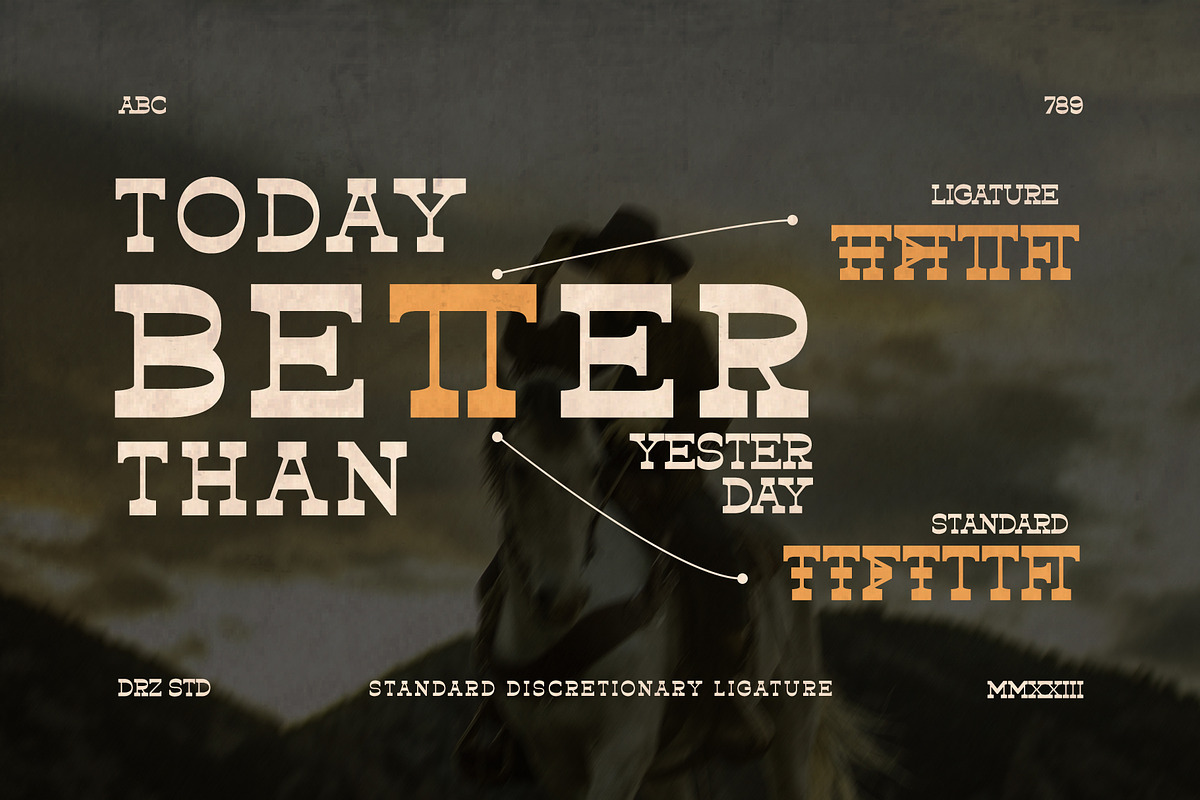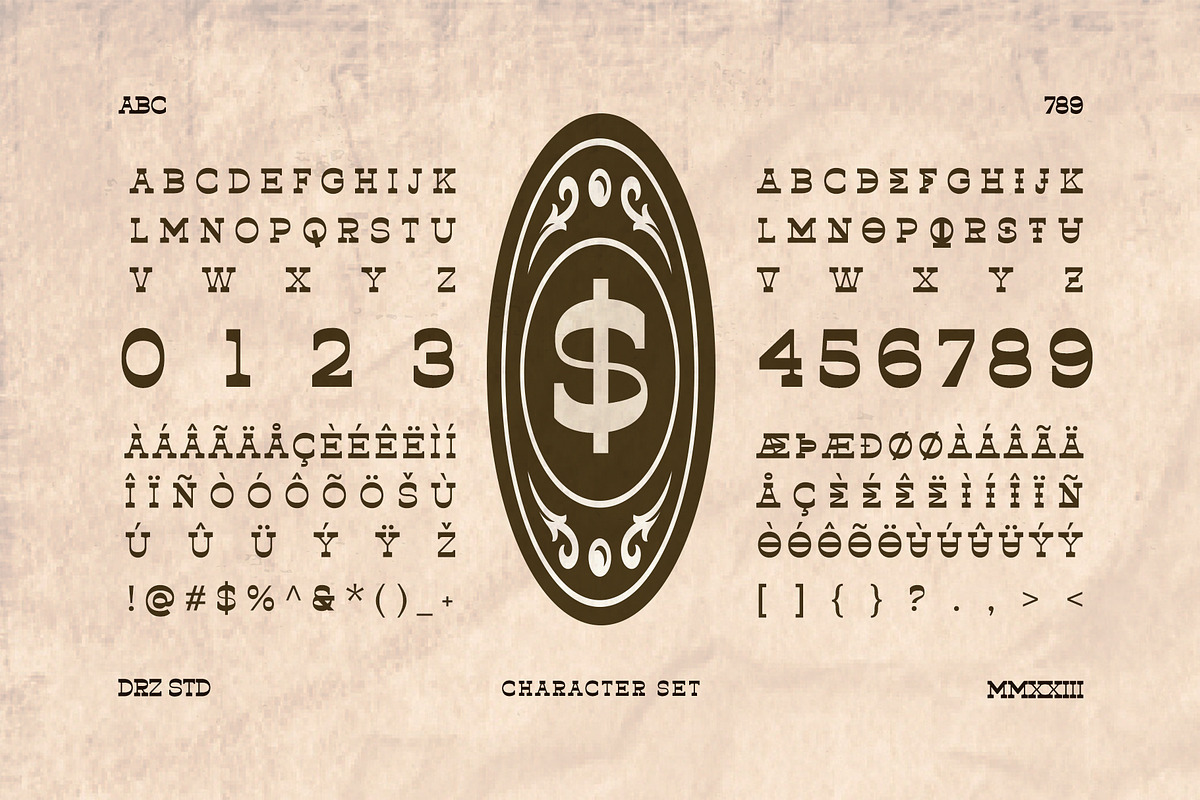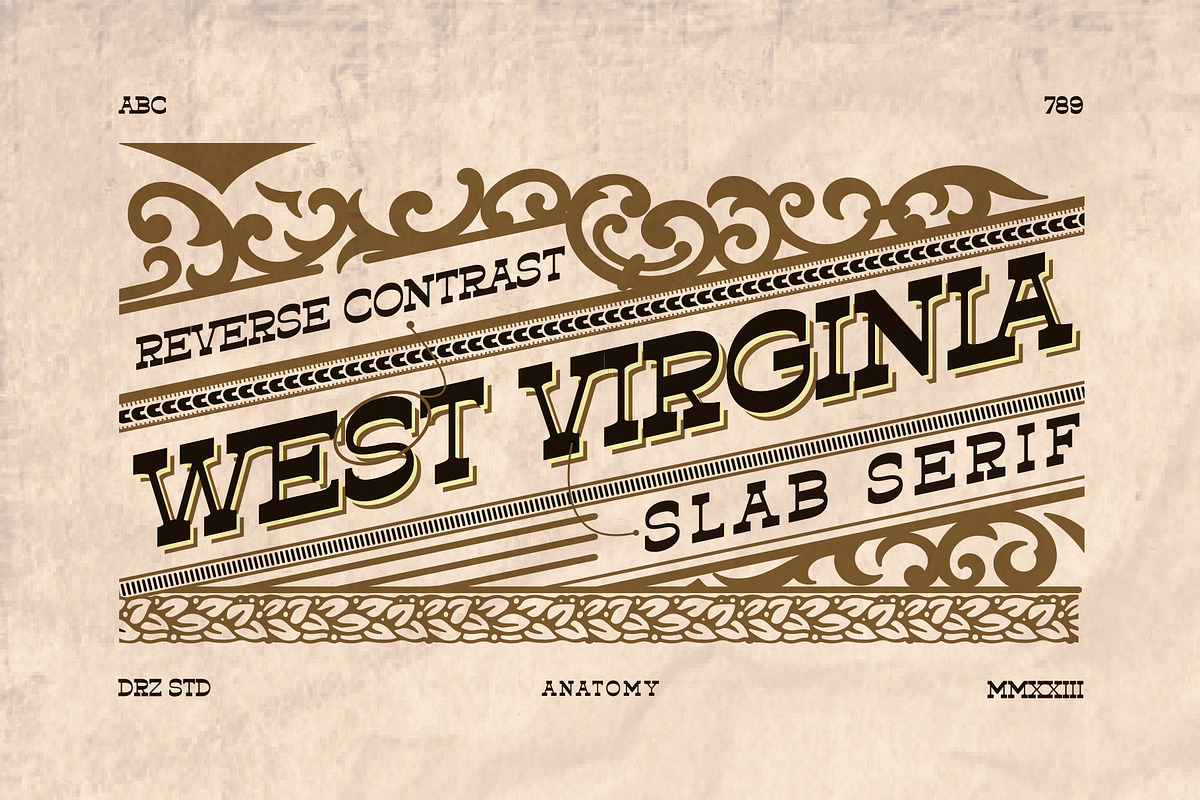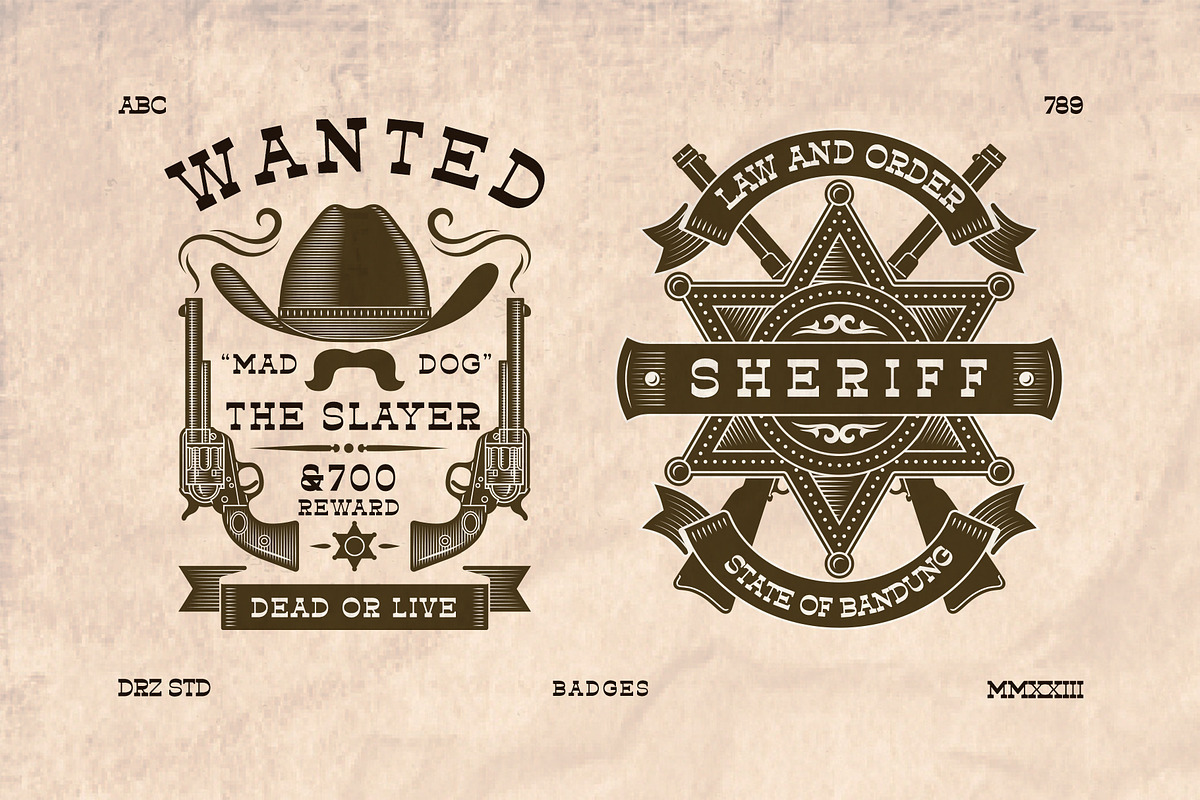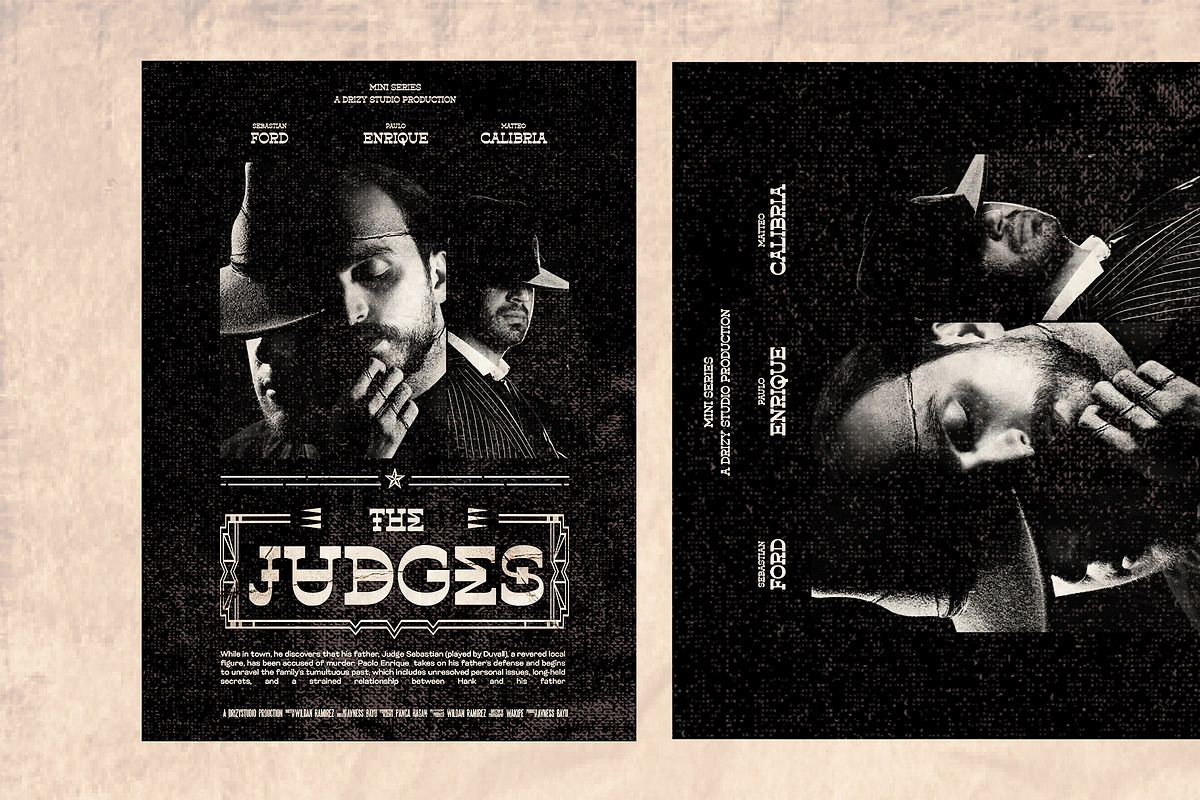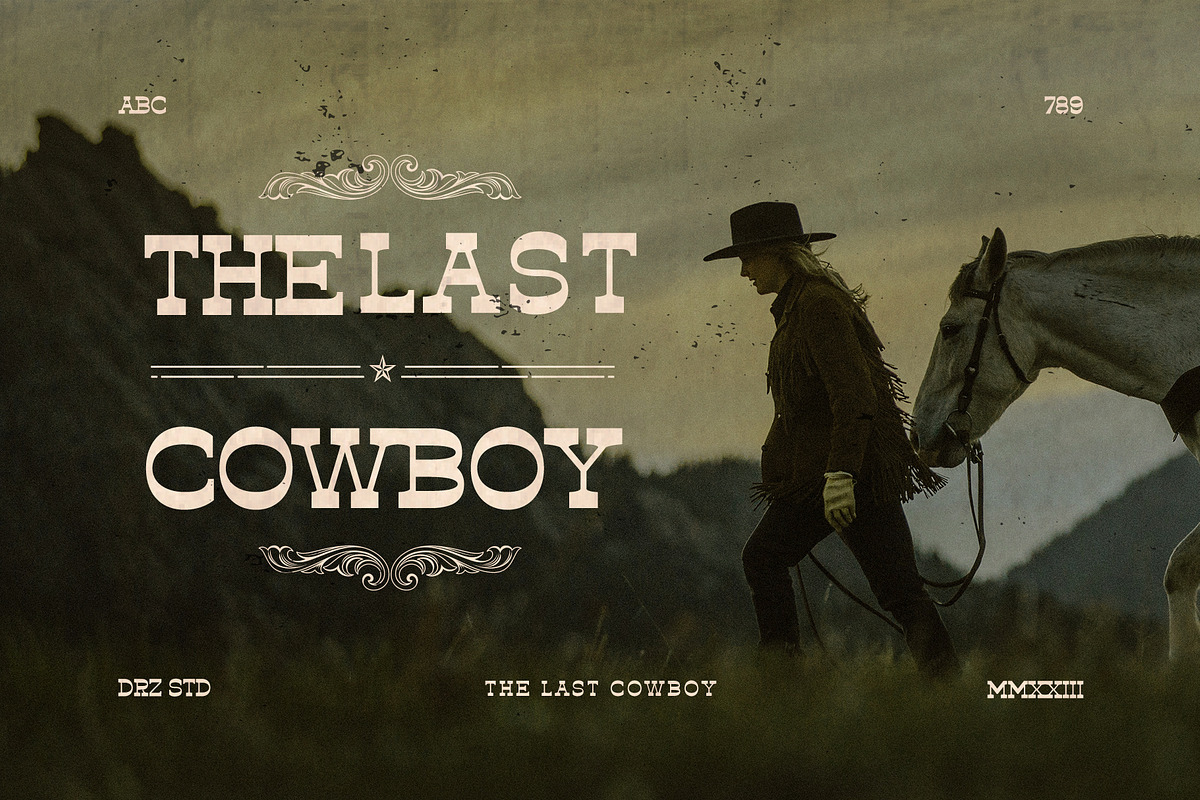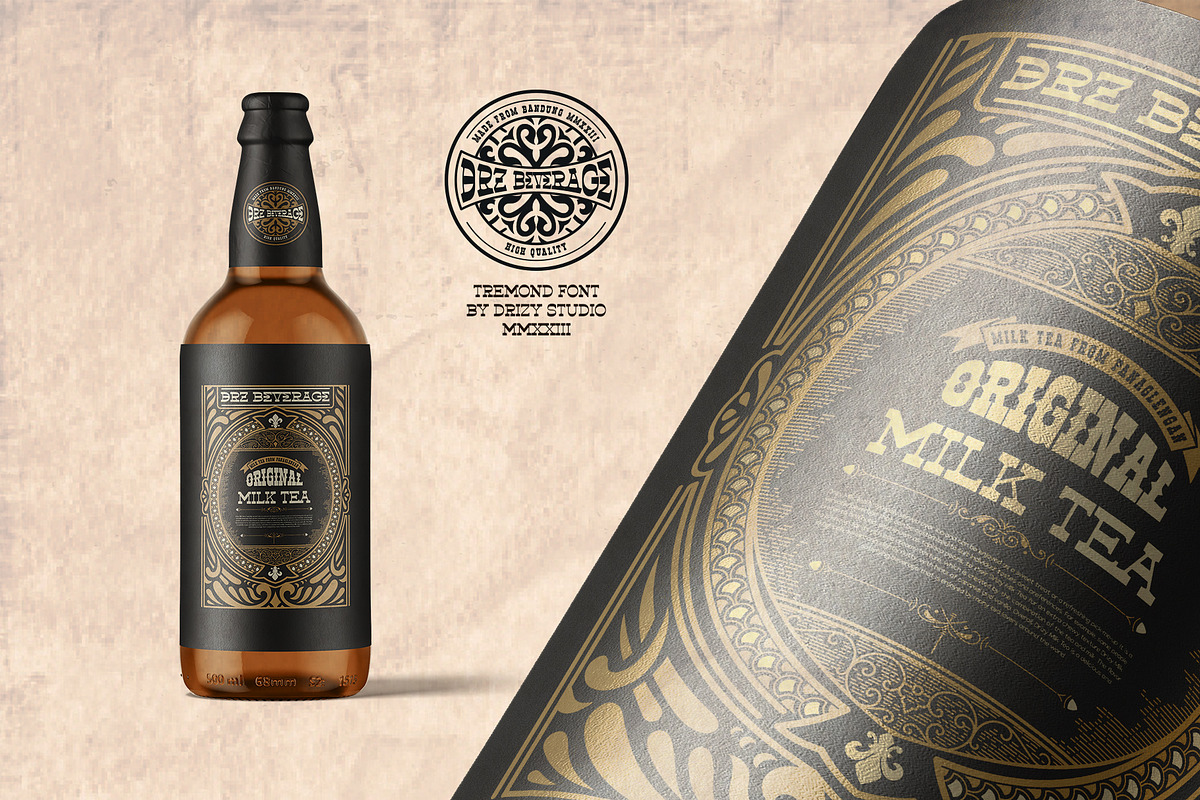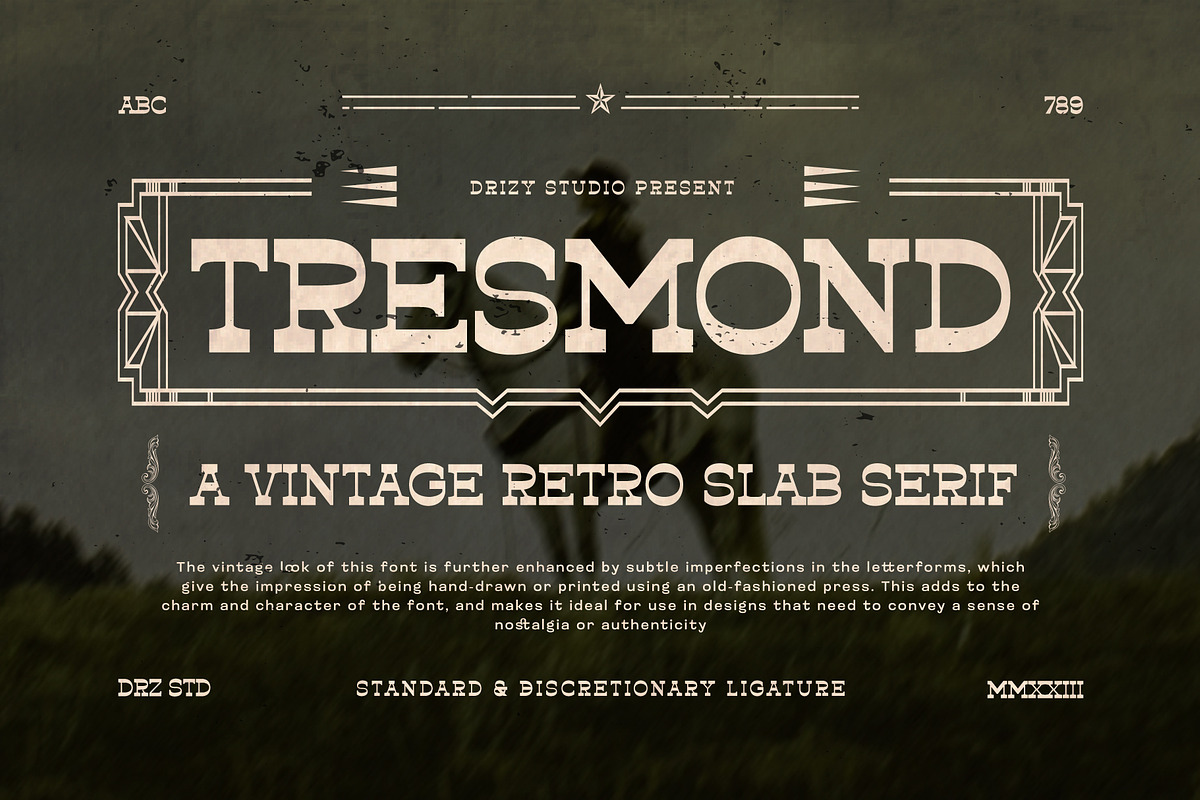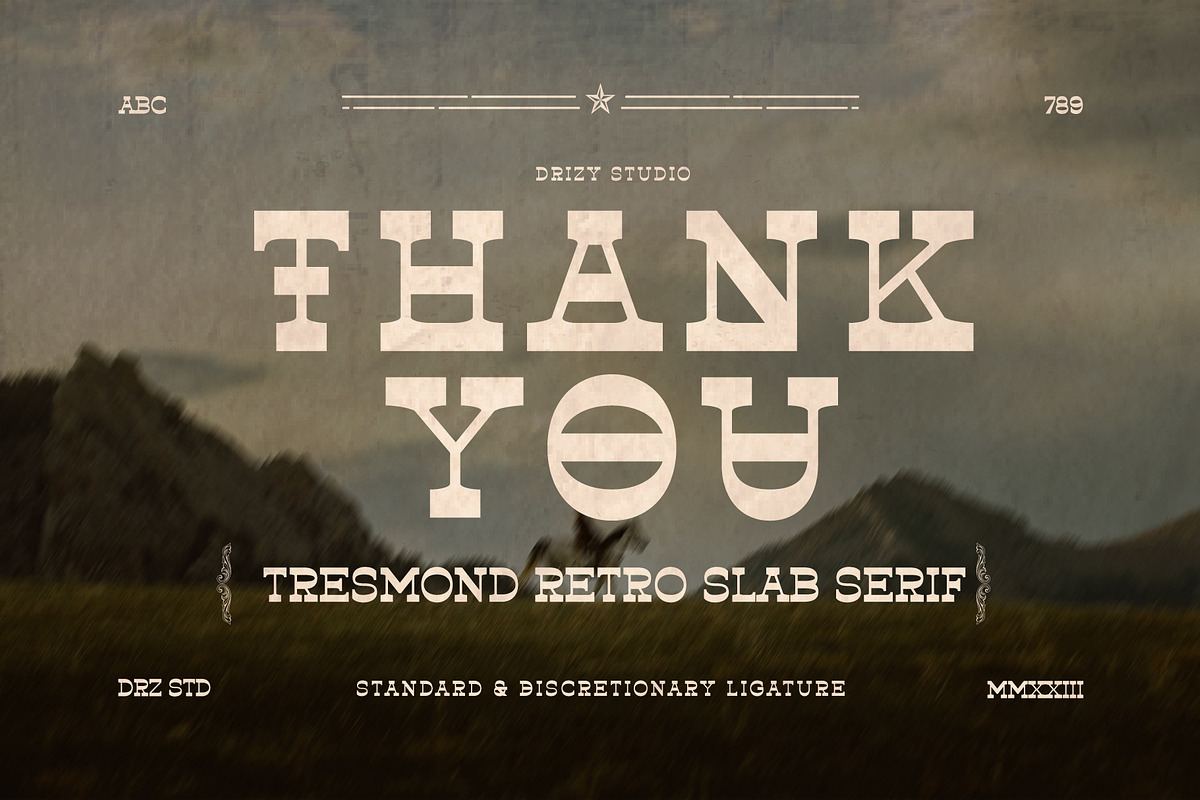
Tresmond - Vintage Retro Slab Serif
Tresmond - Vintage Retro Slab Serif Font
Tresmond is a Vintage Retro Slab Serif Font from Drizy Studio. Experience the Timeless Charm of Tresmond - A Vintage Retro Slab Serif Font!
Tresmond features: Uppercase and lowercase letters Punctuation Numbers Ligatures Multilingual